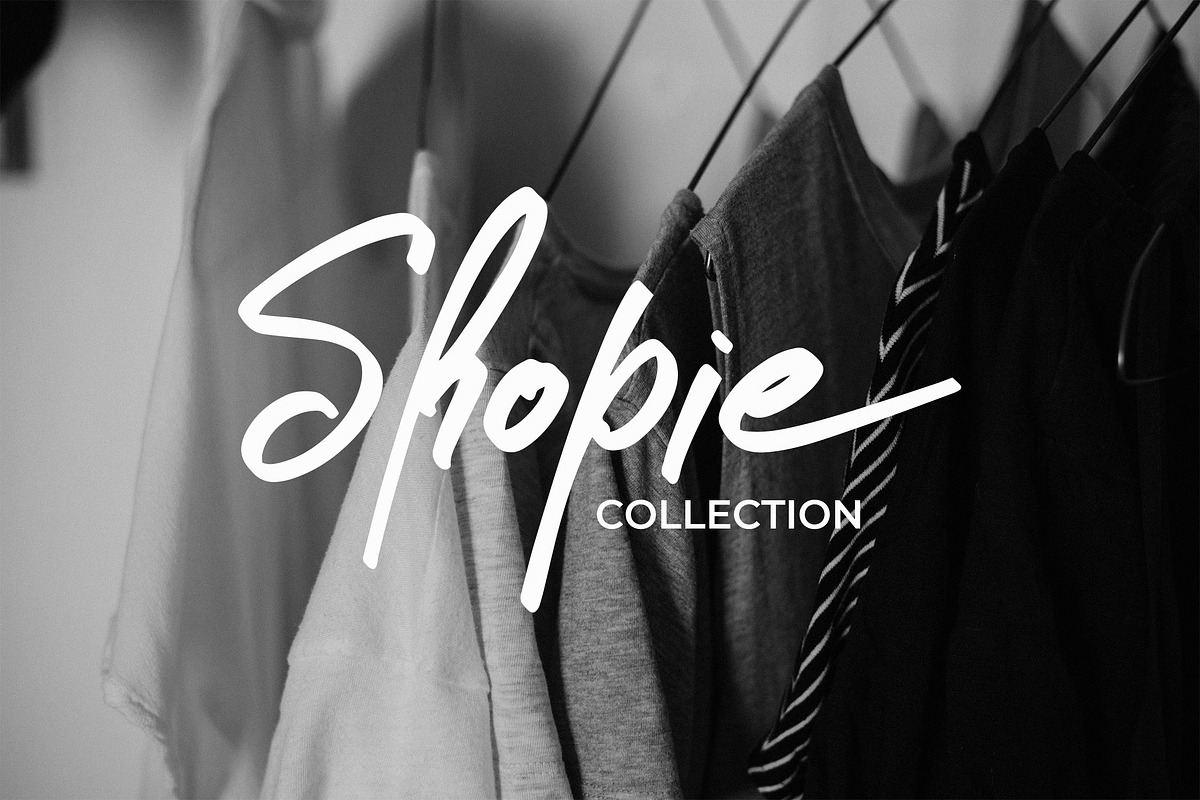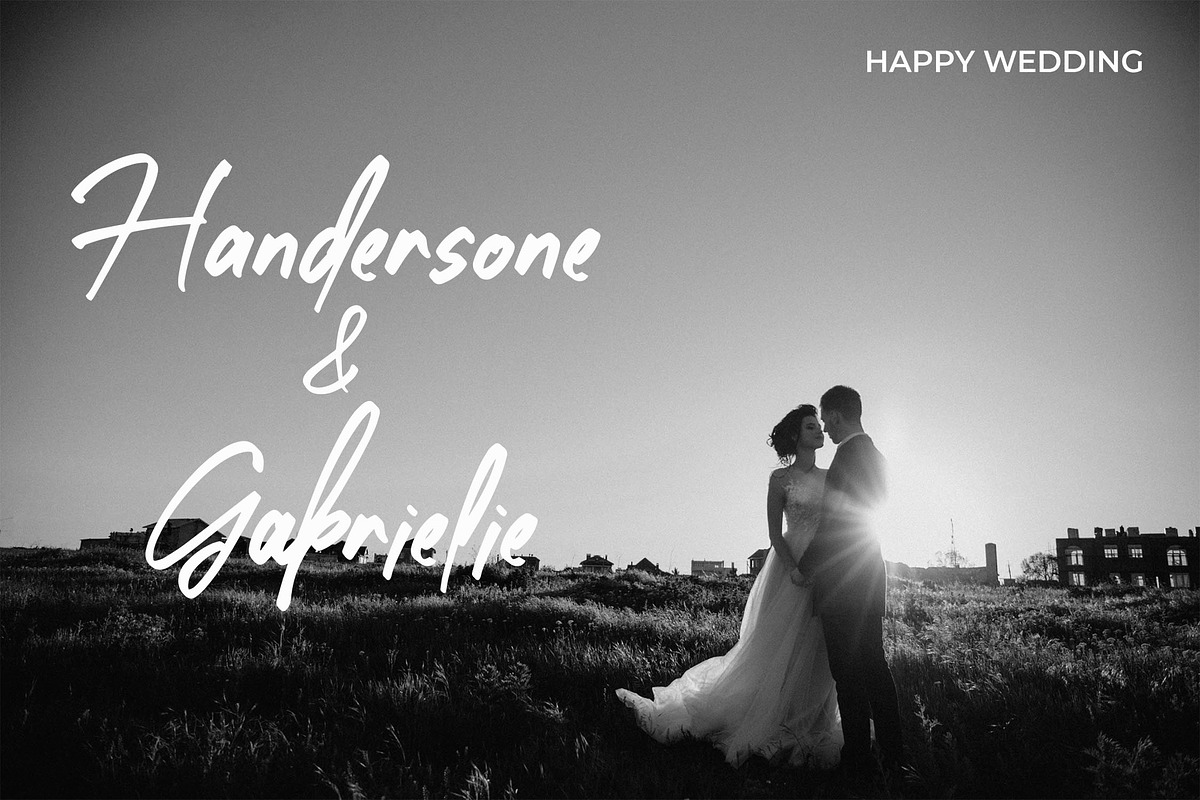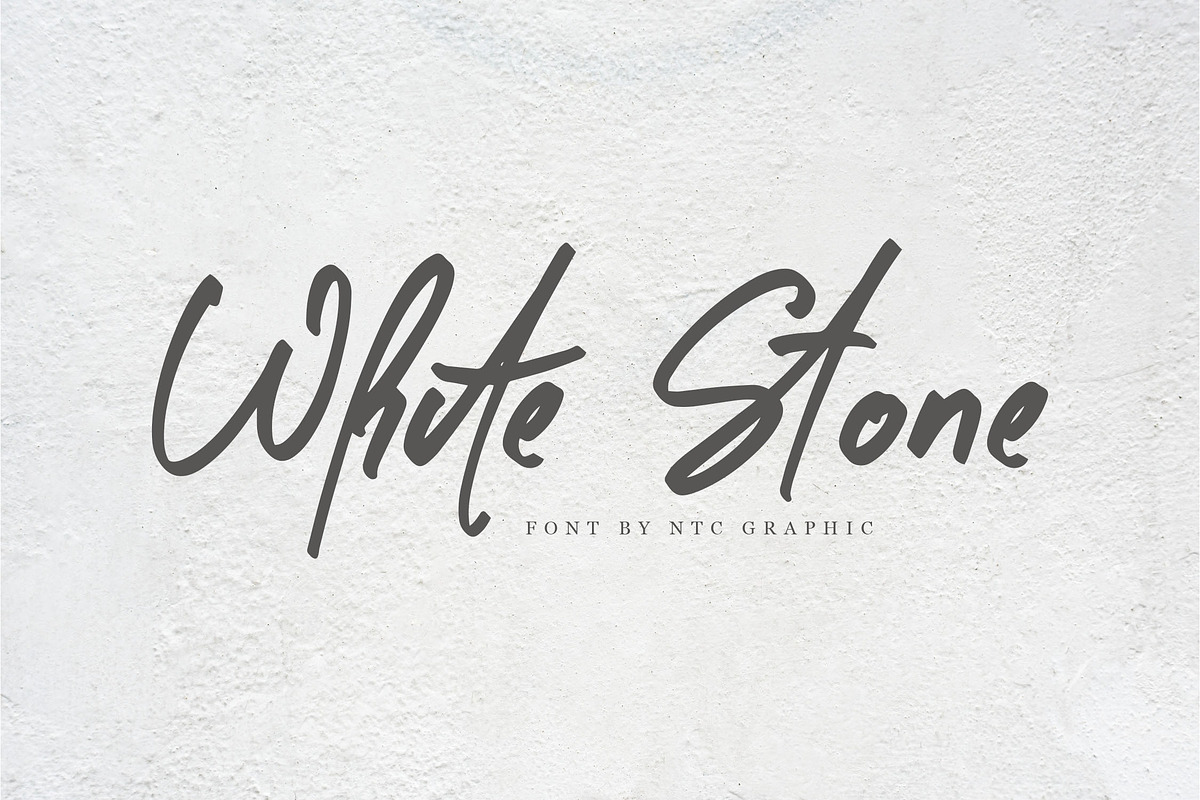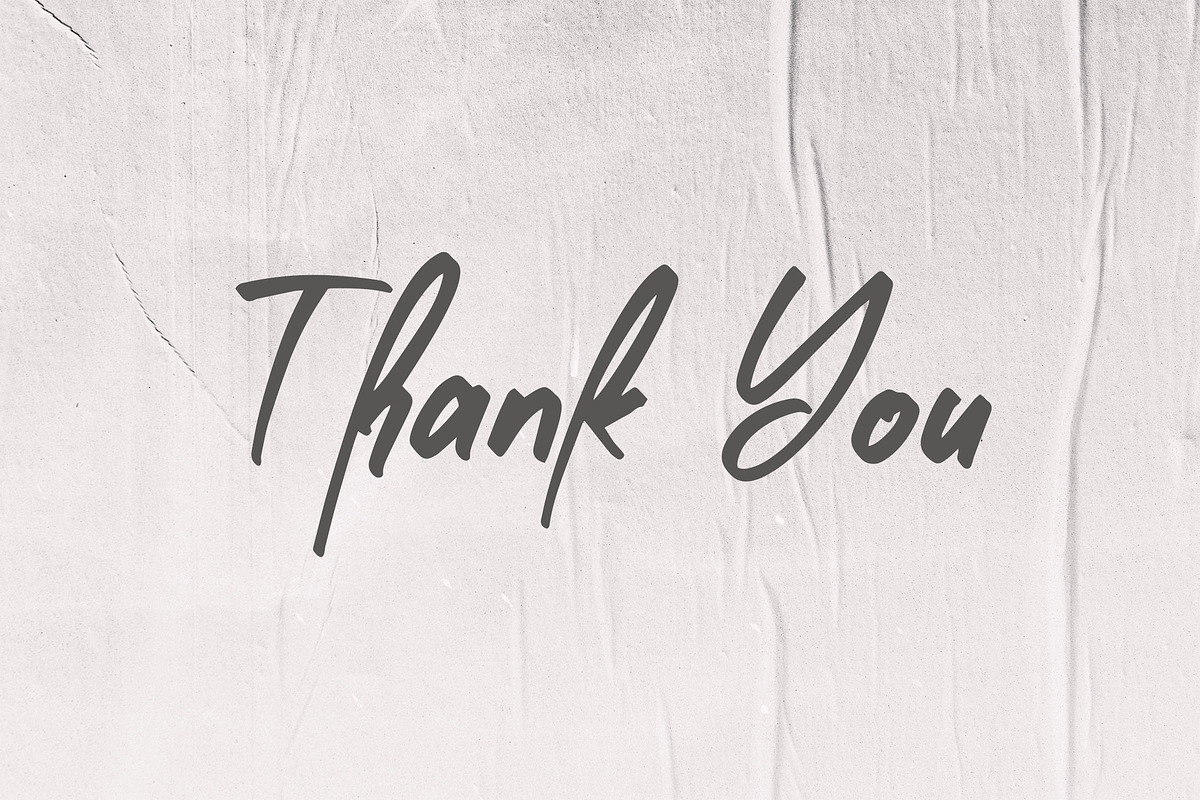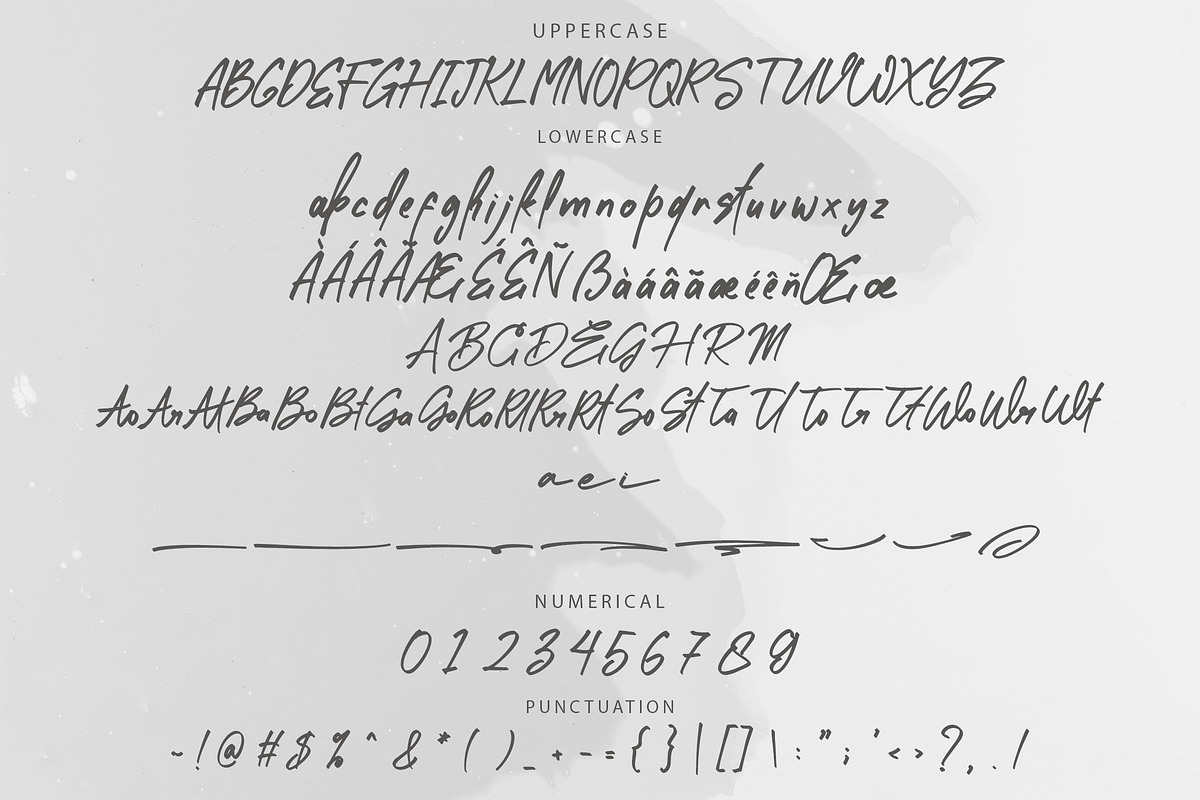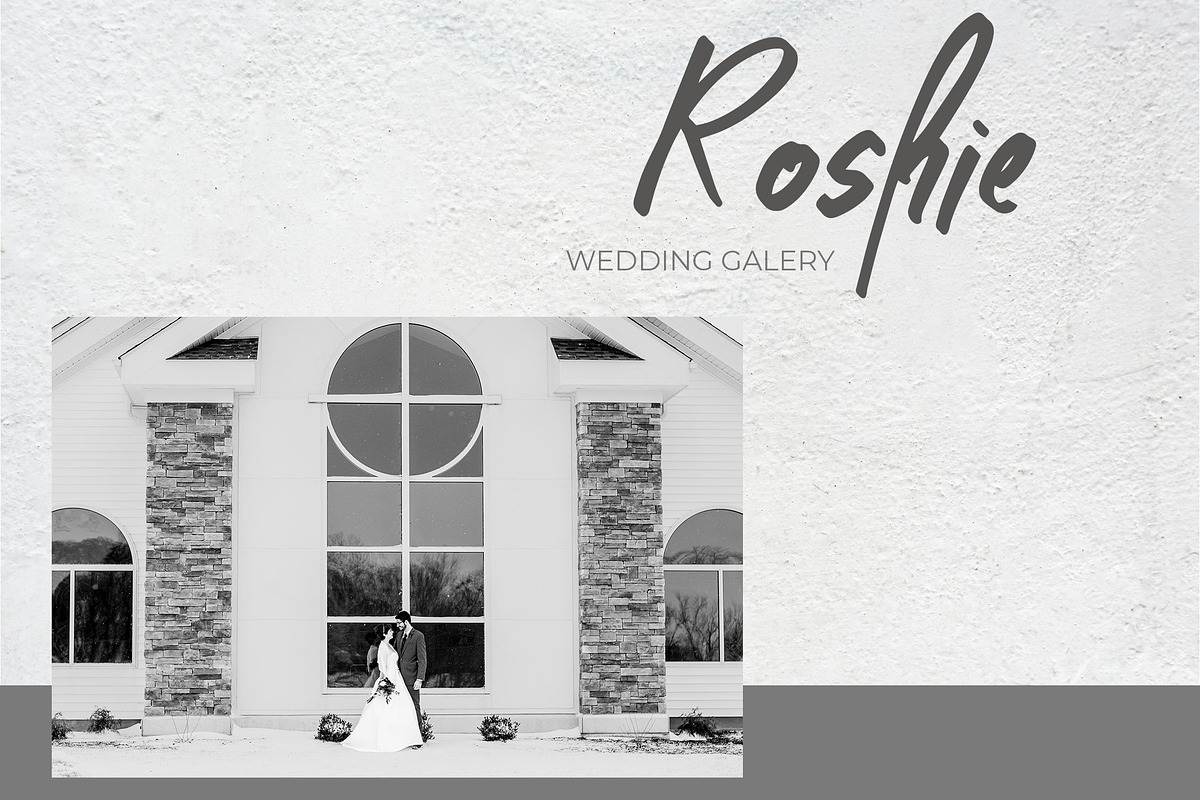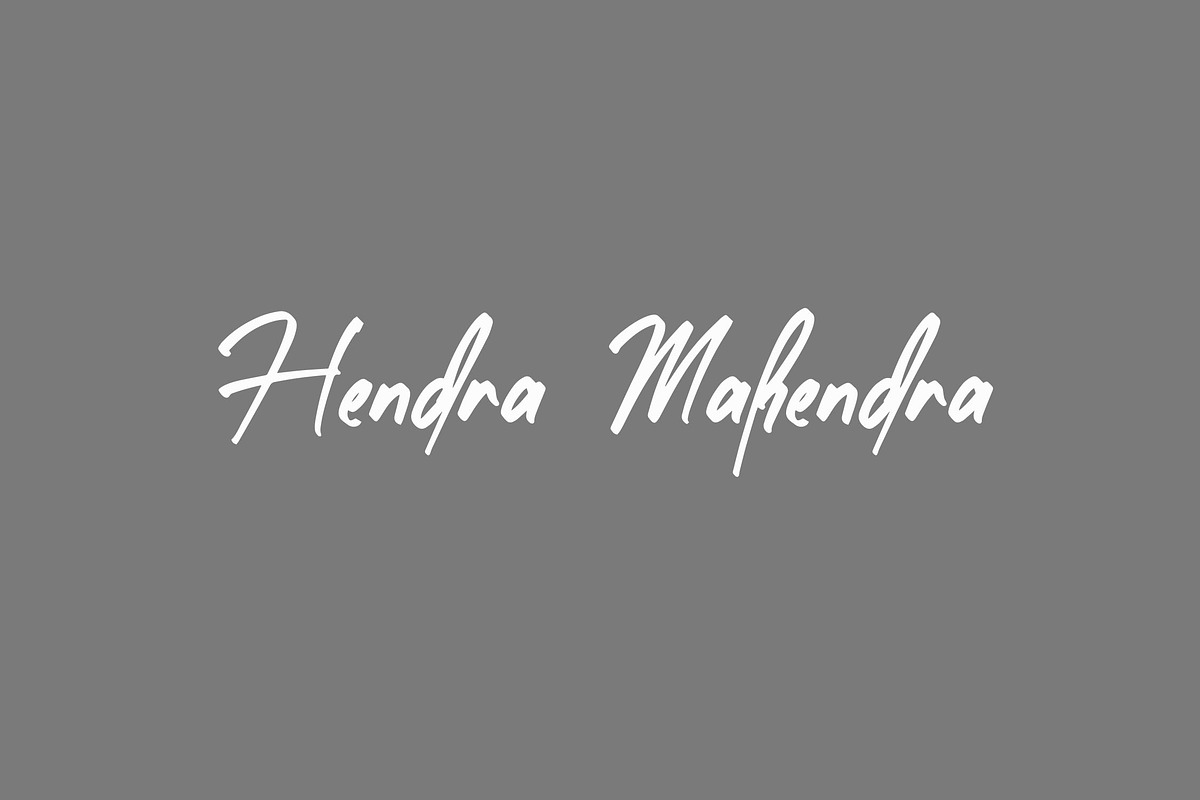
White Stone Script Brush Font
White Stone is a script font with handbrush style. Is a font style that is made with unique shapes font characters are really good. Can be applied to support the graphic appearance of the product to be more attractive.
- Stylistic Alternate